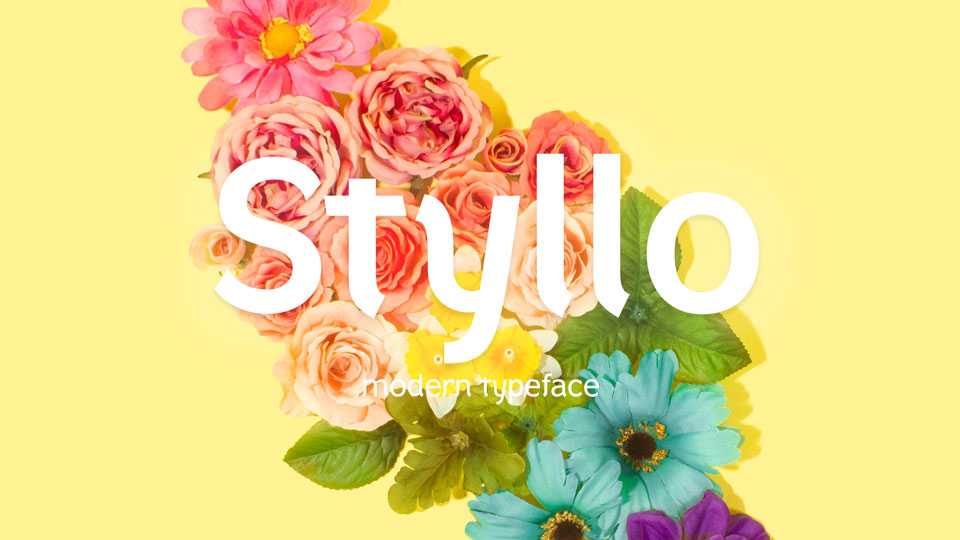
Download Styllo typeface, a stylish and unique font family in two weights with a lot of personality. Styllo is great for logos and branding, headlines, covers, fashion, social media and more.
Designer: Genilson Lima Santos